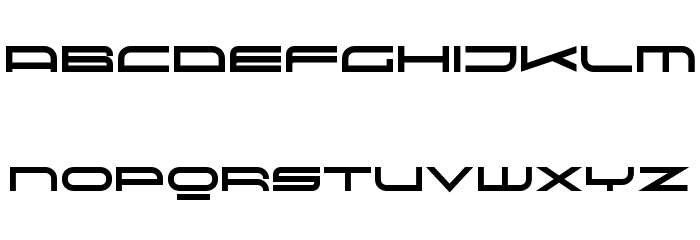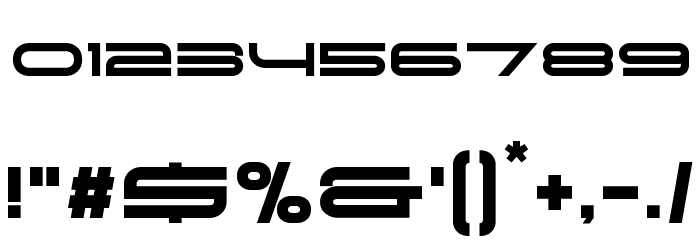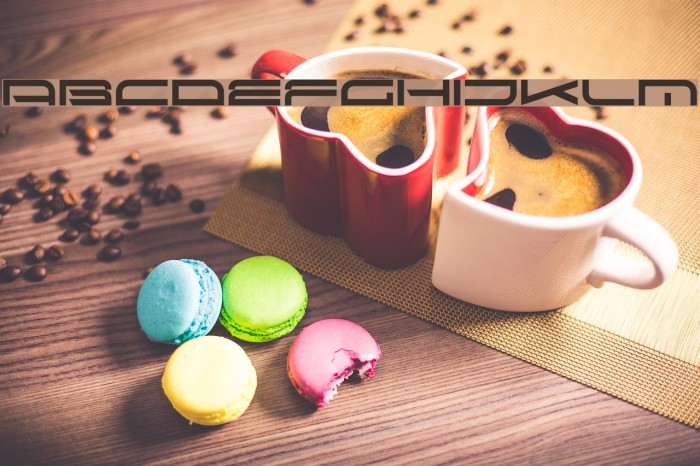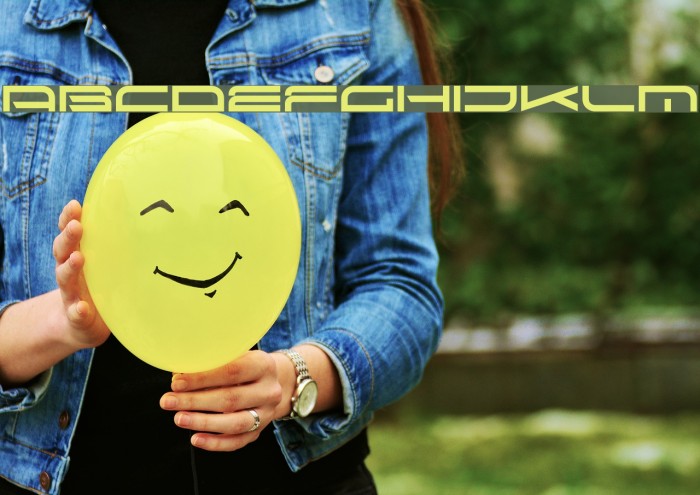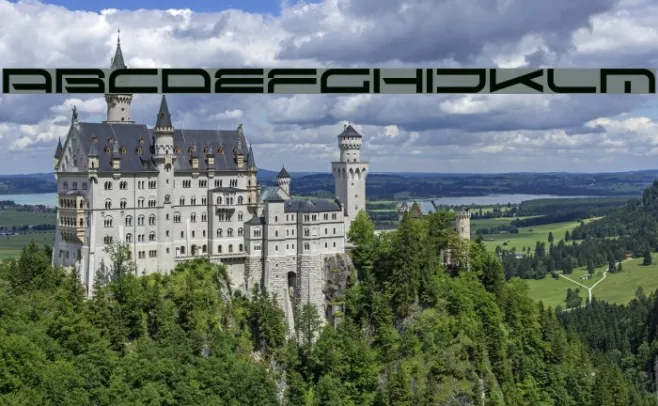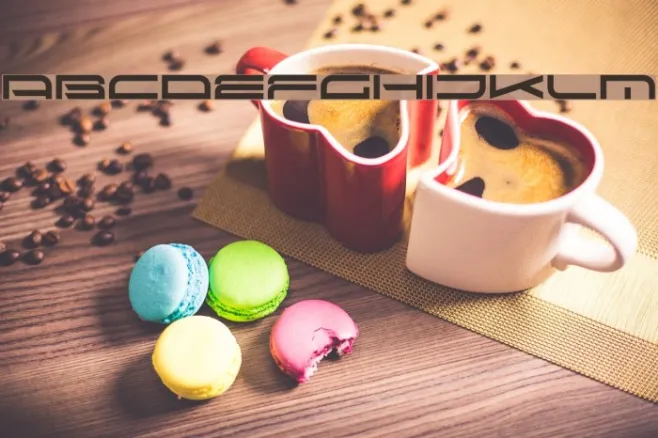
Red Seven Font
This font features a futuristic and geometric design with a distinctively modern aesthetic. The characters are composed of bold, angular lines with a consistent stroke width, giving it a sleek and streamlined appearance. The uppercase and lowercase letters share a similar structure, enhancing the uniformity of the typeface. The numerals and special characters maintain the same stylistic elements, ensuring a cohesive look across all glyphs. The font's design is characterized by its minimalistic and tech-inspired style, making it suitable for projects that require a contemporary and innovative feel.
A futuristic, geometric font with bold, angular lines and a modern aesthetic.
- Proposed Projects: Ideal for technology branding, sci-fi themed designs, video game interfaces, and modern advertising.